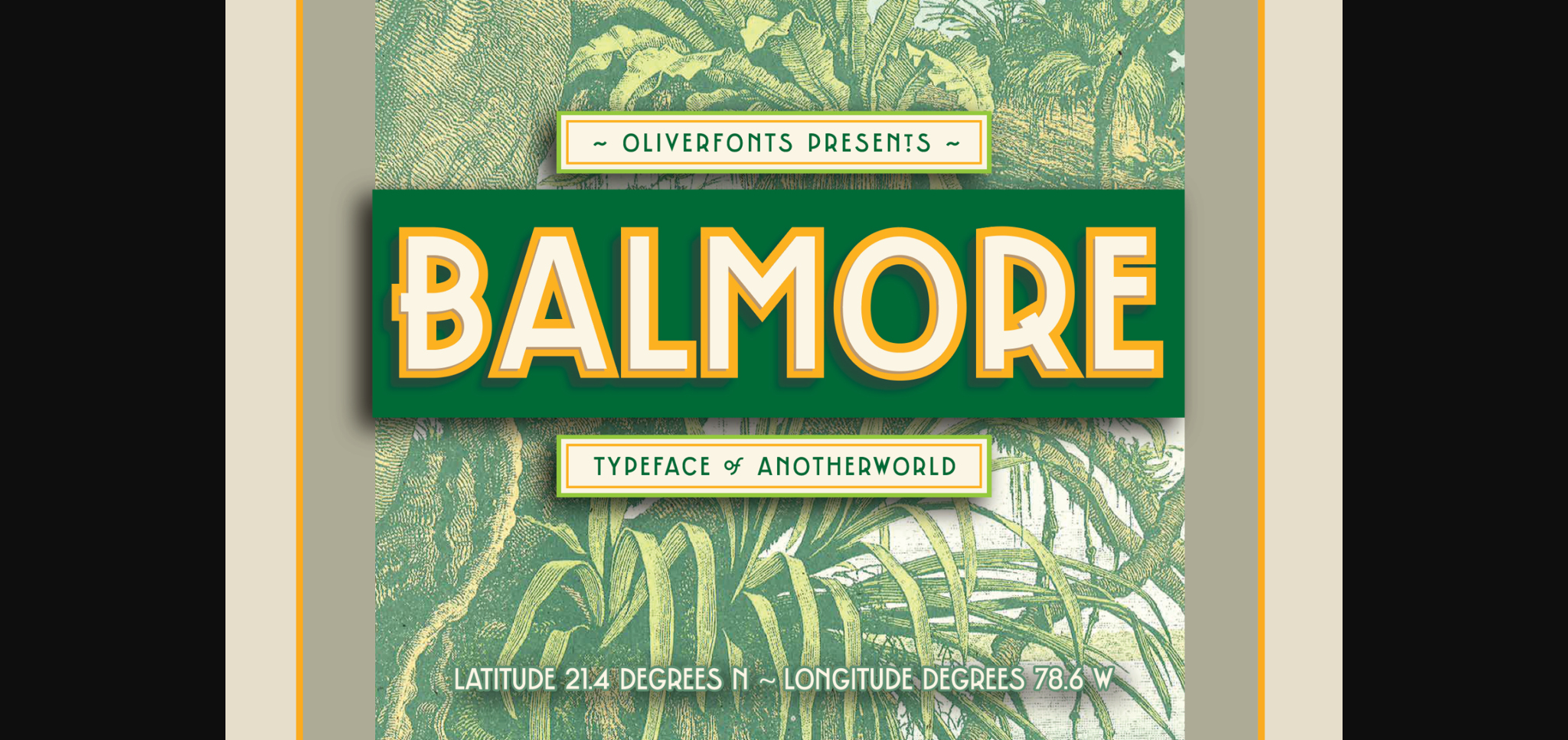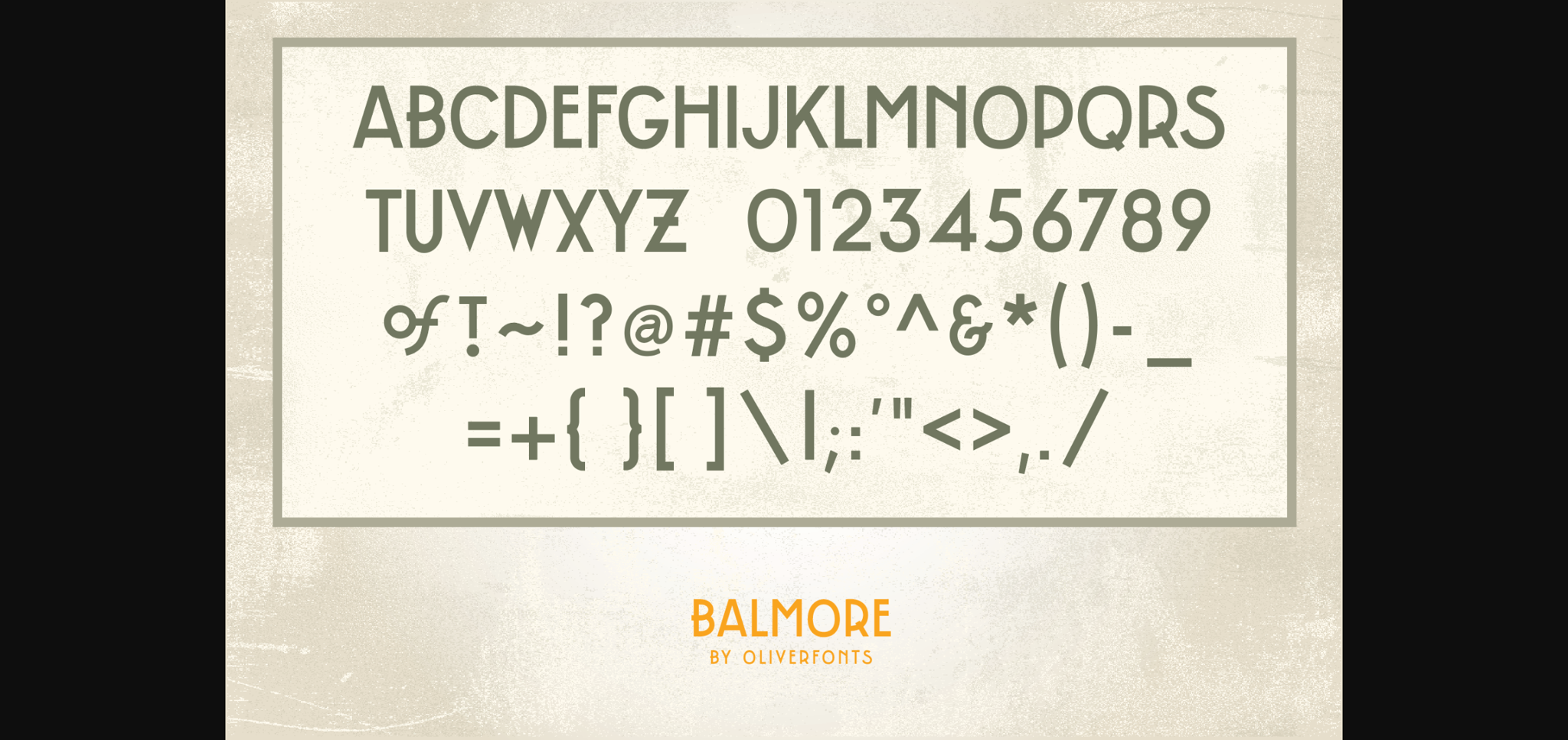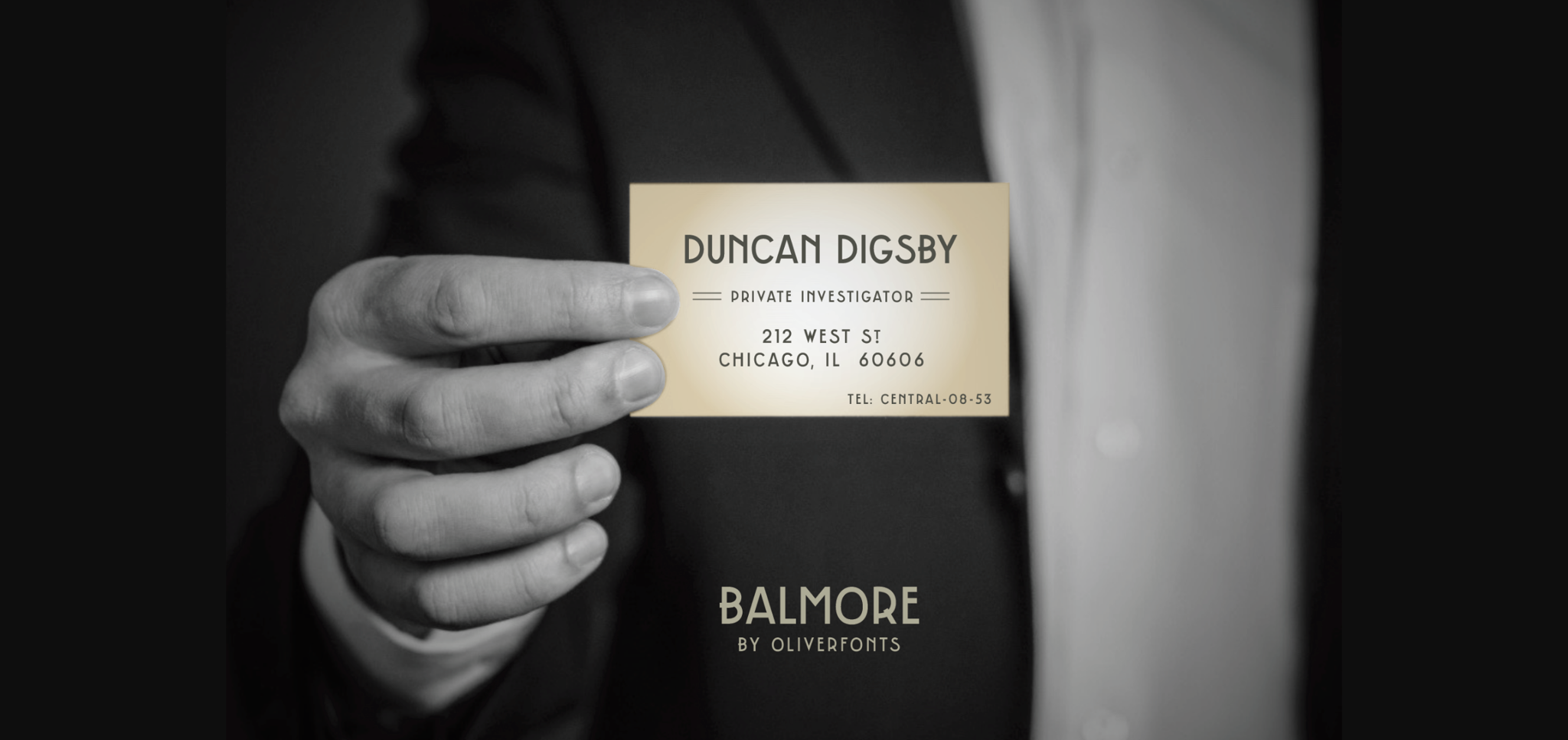
About Balmore Font
Balmore is a simple and neat sans serif font. Look no further in your search for a throwback all-caps font with a strong Art Deco, yet Modern-Era feel. What better way is there to bring authenticity and unexpected originality to your next project?